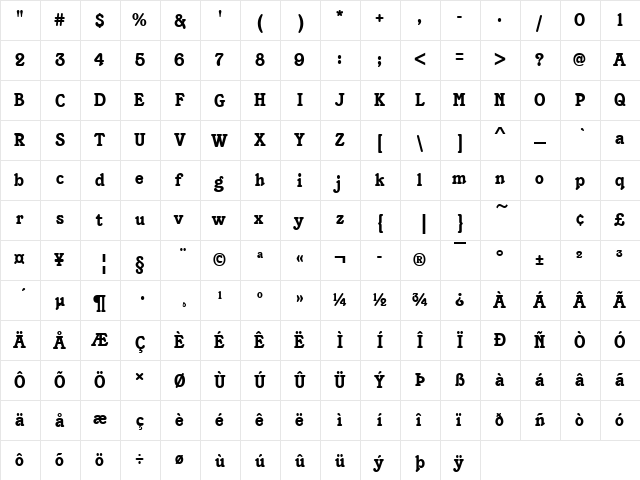
URWTheiaPlaD Regular
Design Context for URWTheiaPlaD Typeface
URWTheiaPlaD is a composed and adaptable typeface that performs quietly and consistently across a wide range of design contexts.